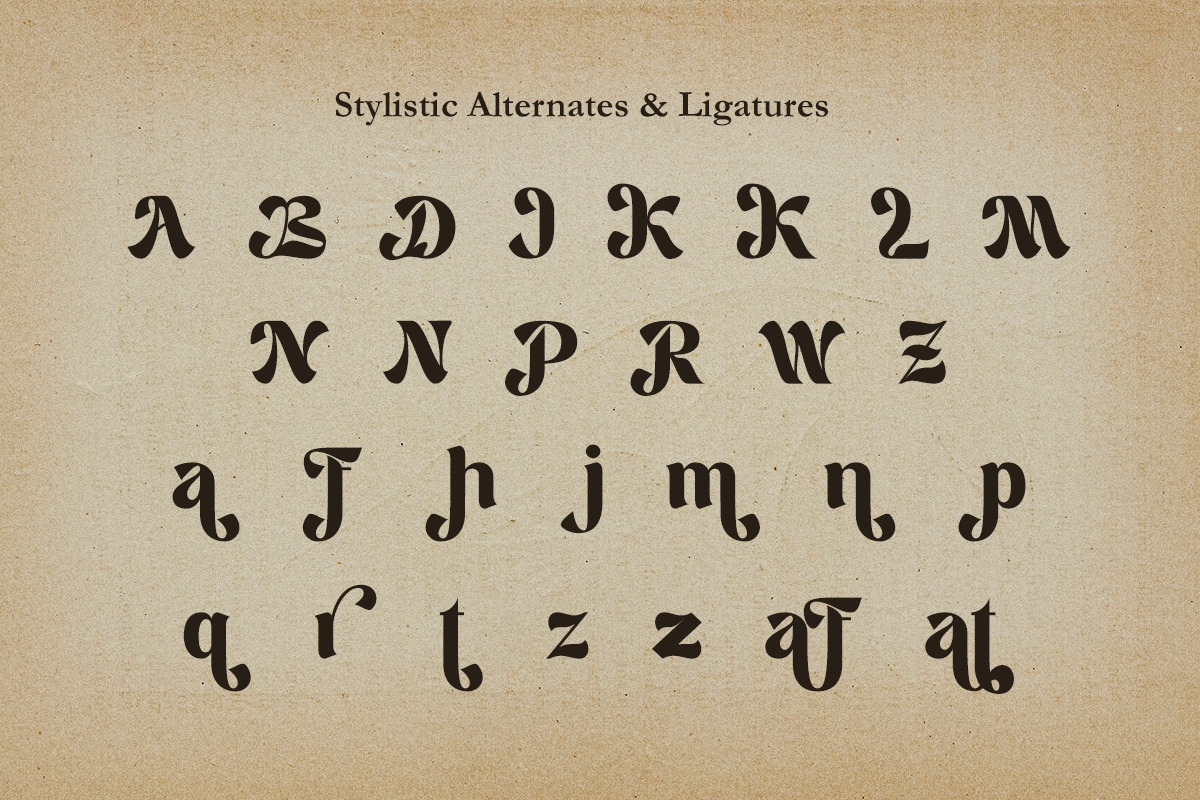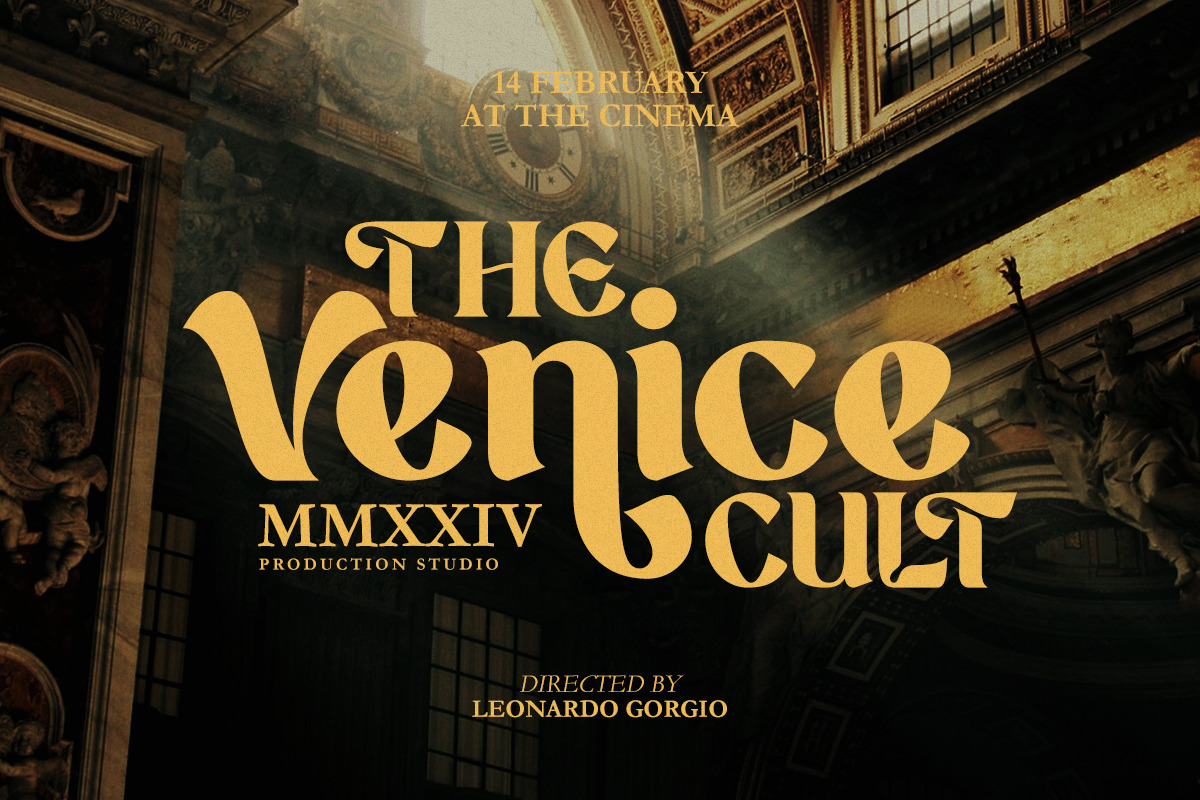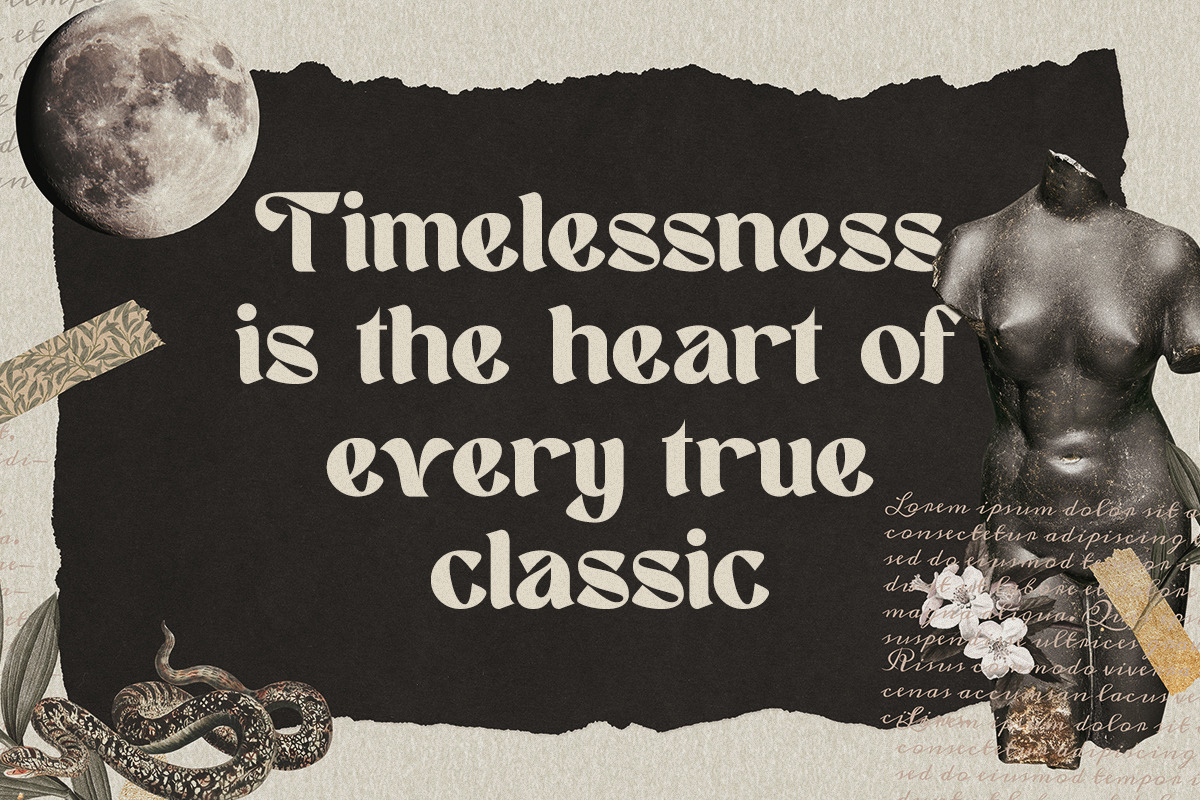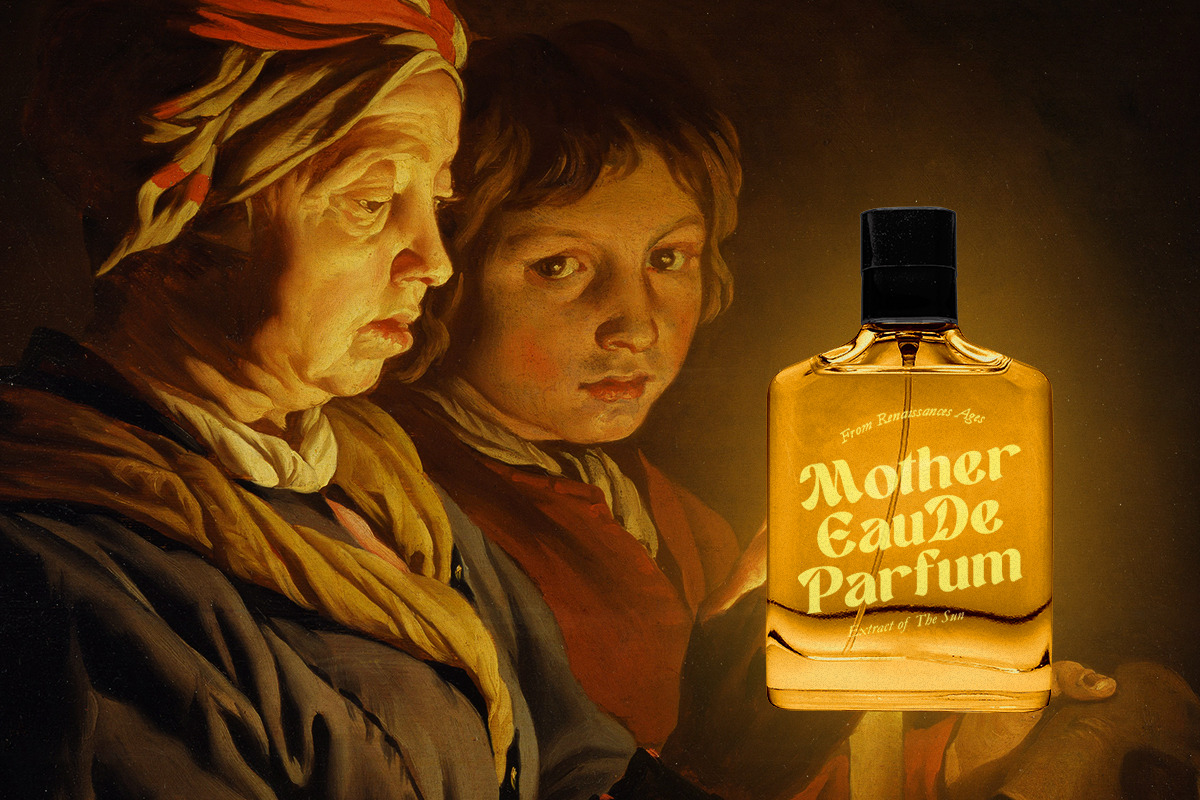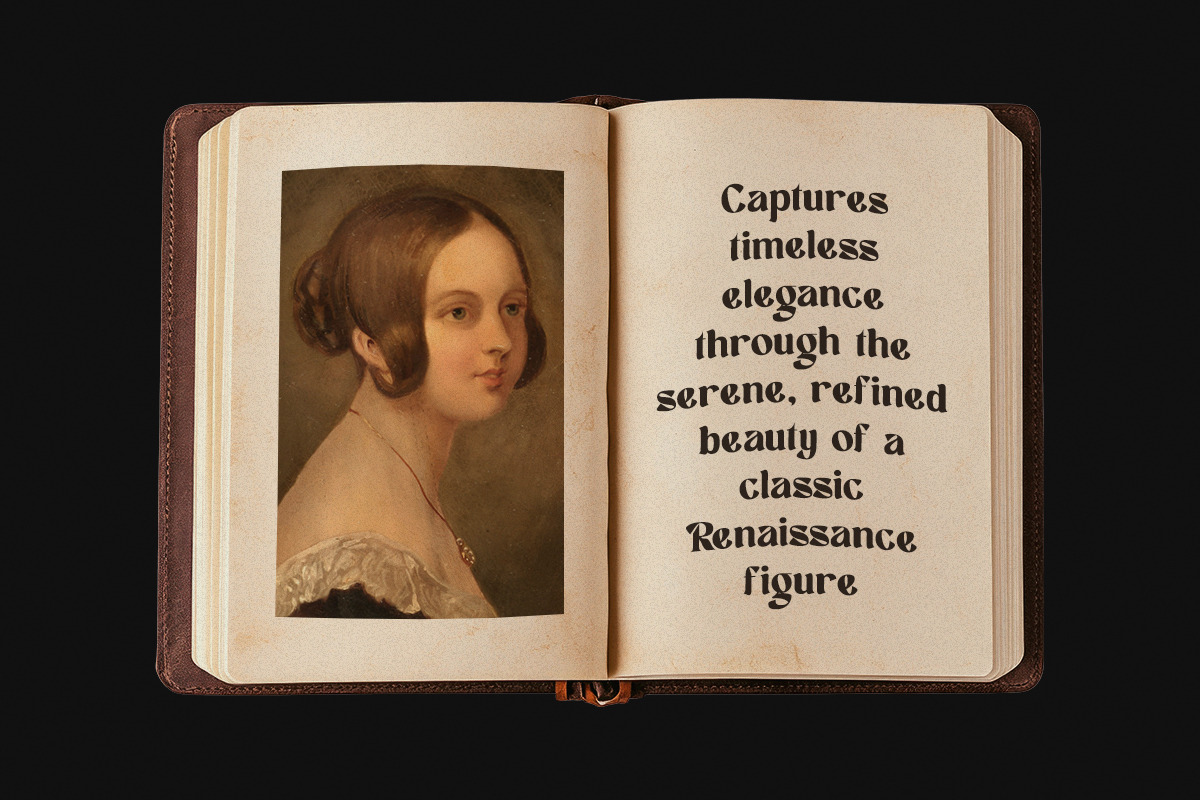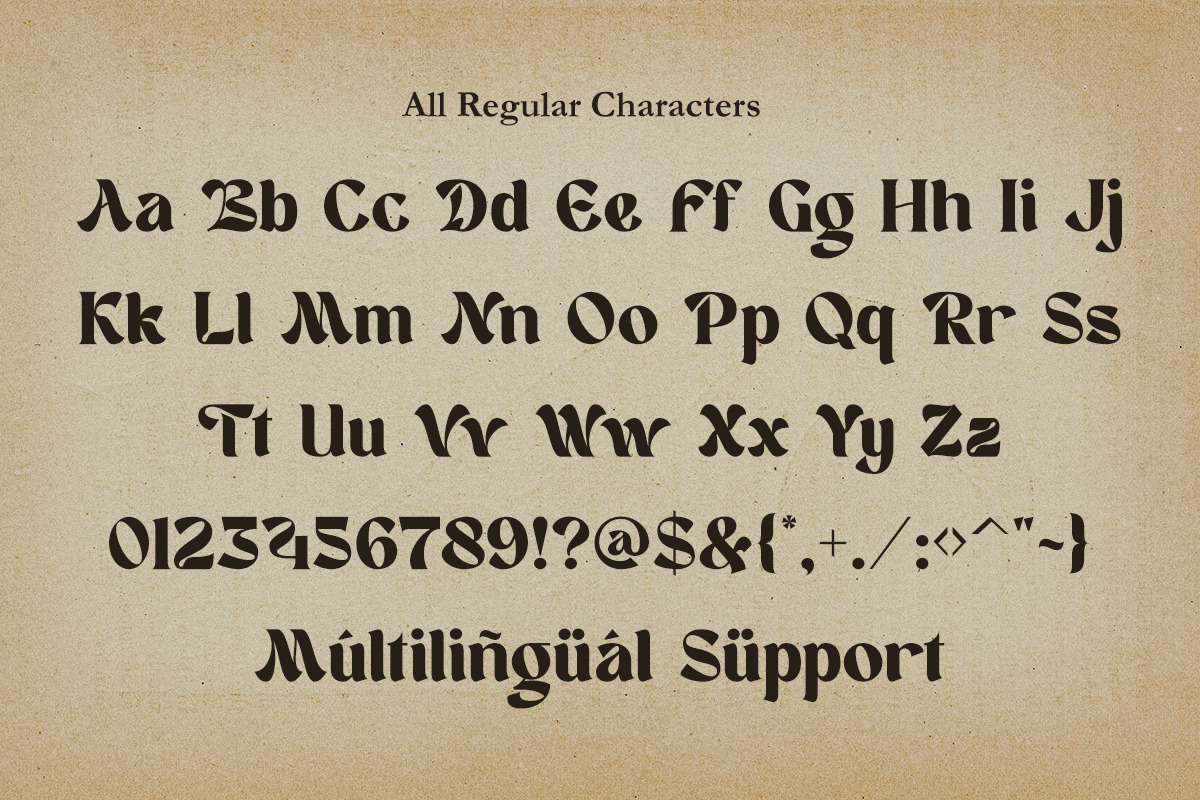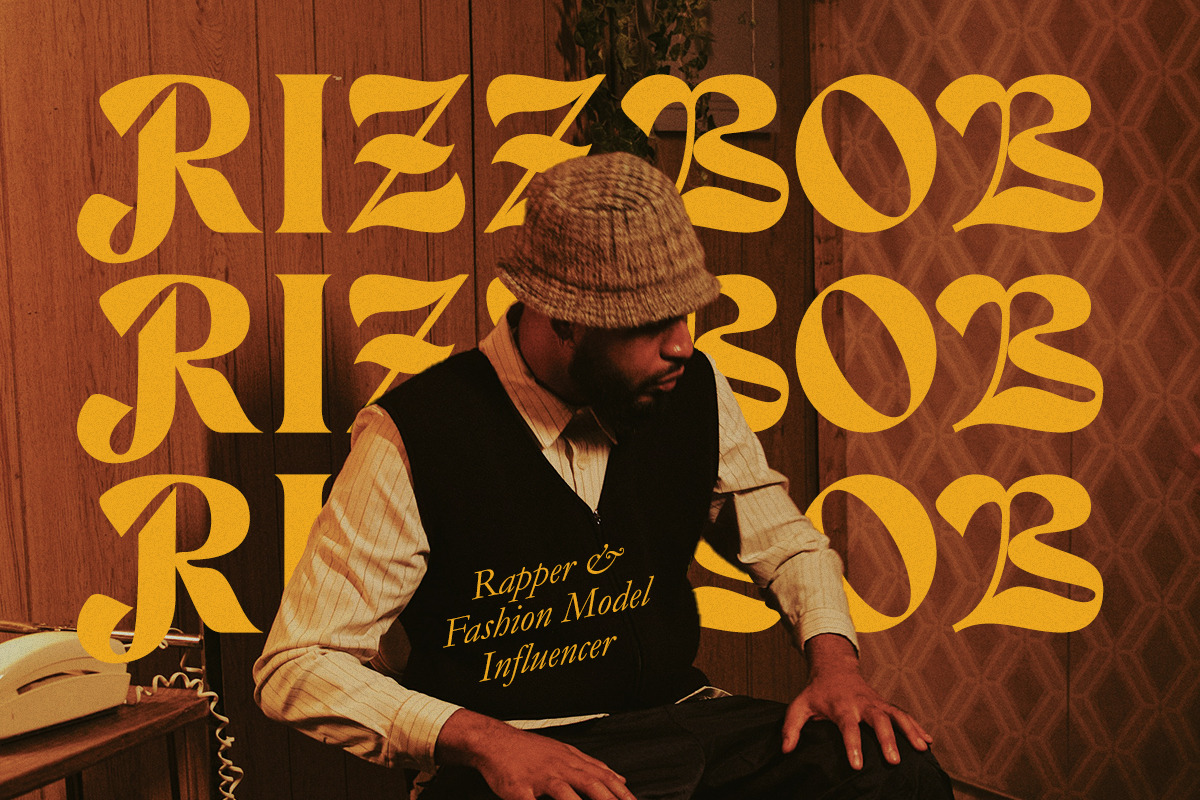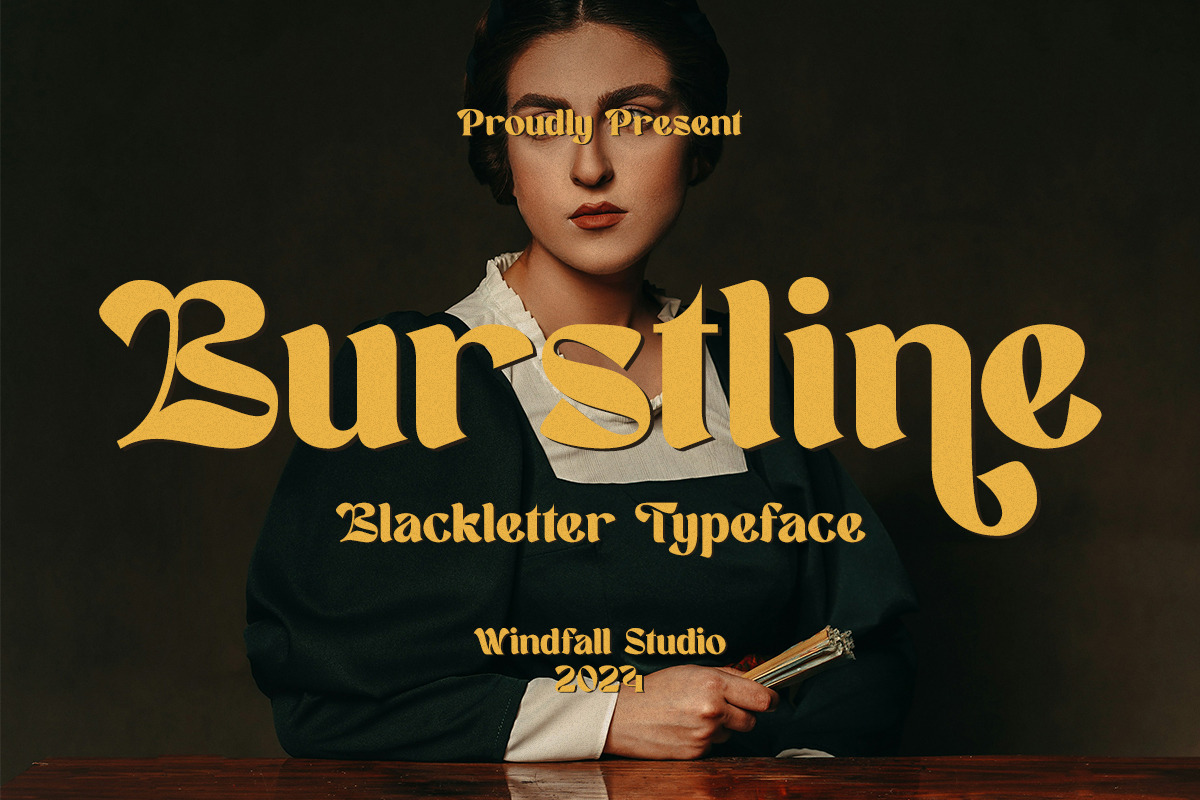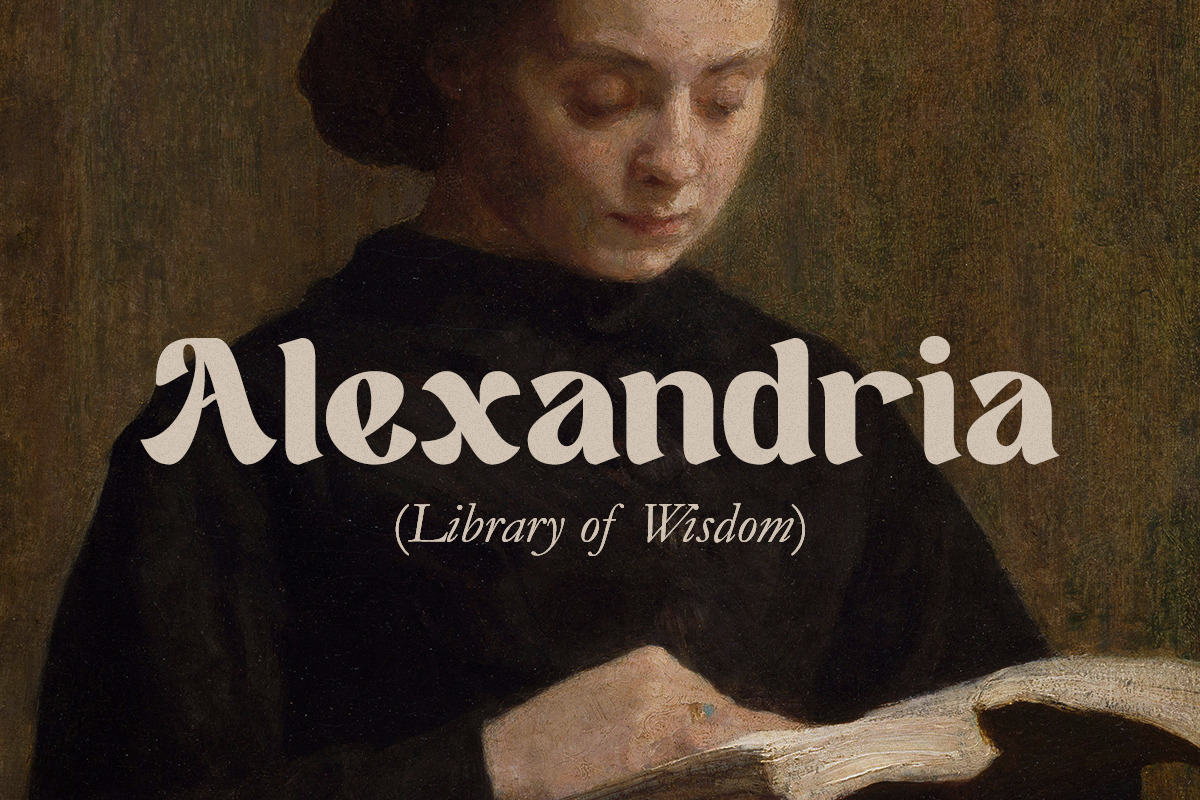
Burstline - Modern Blackletter Font
Introducing Burstline, a striking blackletter typeface from Windfall Studio. This font combines the traditional elegance of blackletter calligraphy with a modern twist, making it perfect for bold headlines, logos, posters, and editorial designs. With its sharp, intricate details and dramatic flair, Burstline adds a touch of sophistication and historical charm to any project. Whether you're working on a vintage-inspired design, a medieval-themed project, or a contemporary branding campaign, Burstline delivers a powerful and timeless aesthetic.
Burstline Features: